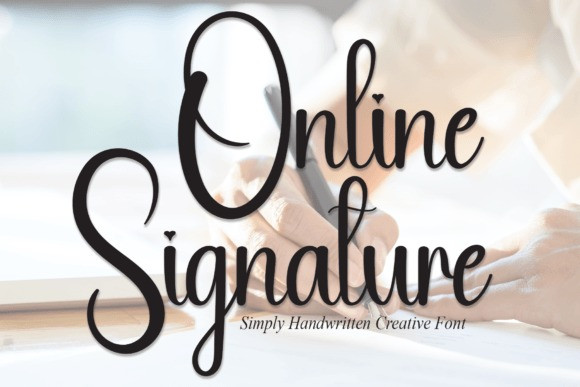
Online Signature Font
Online Signature Font is a sweet and friendly handwritten display font. Cute and fun, this font is ideal for writing wedding invitations, cards, or any other design that might need a fun touch!